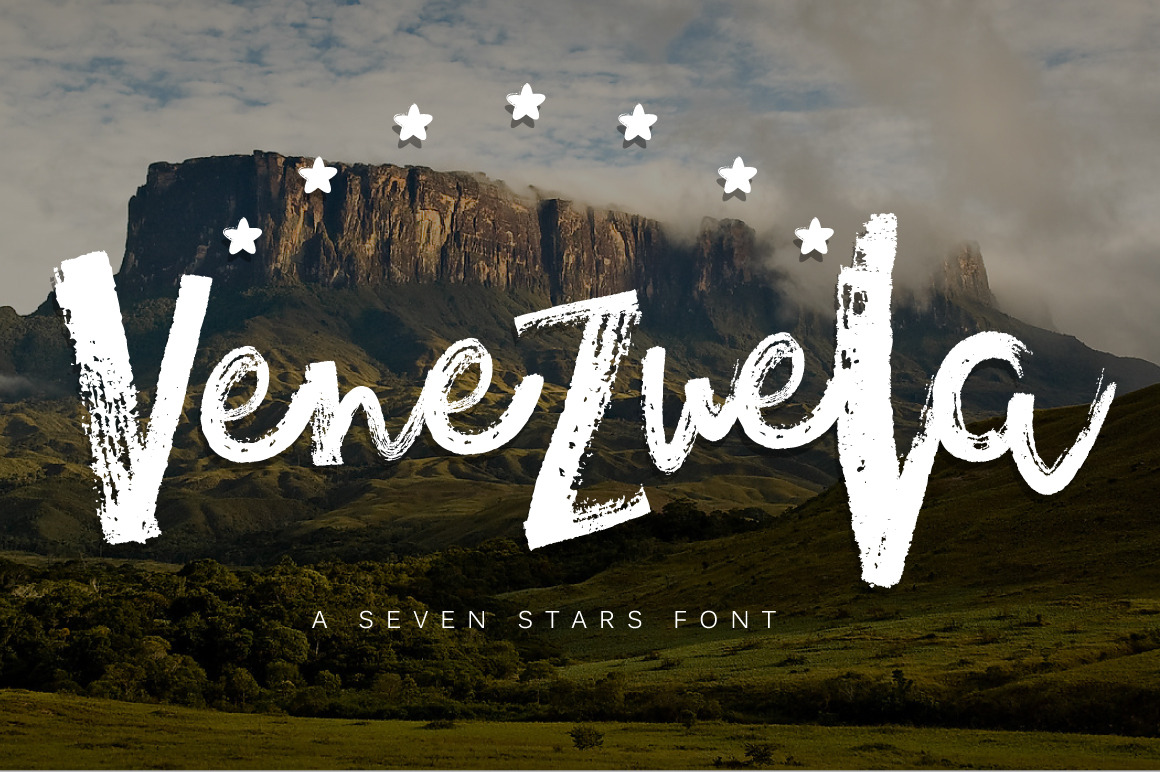
Venezuela - Dry brush font
This time a present to you a handmade drybrush font called 'Venezuela'. I made this font in honor of my country that is currently going thru really bad times.